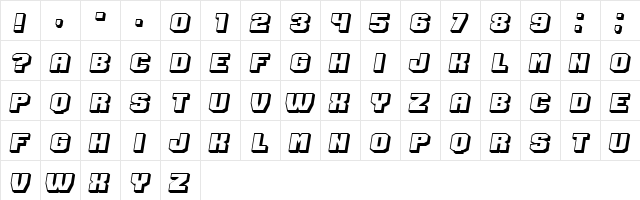
Extradition Italic
Design Context for Extradition Typeface
Extradition is a composed and adaptable typeface that performs quietly and consistently across a wide range of design contexts. Its italic angle brings a sense of urgency and motion to the letterforms.
Pro Tip: Try Extradition for annotation and caption copy alongside an upright companion — the contrast in angle creates a dynamic but ordered typographic system.